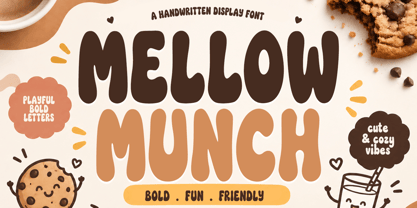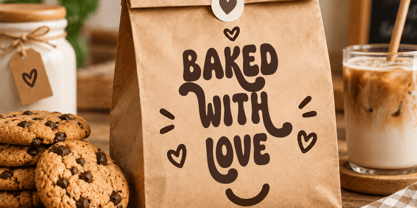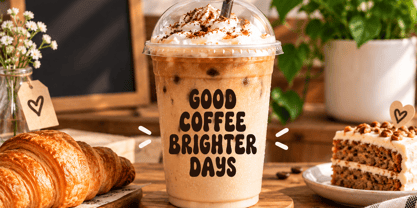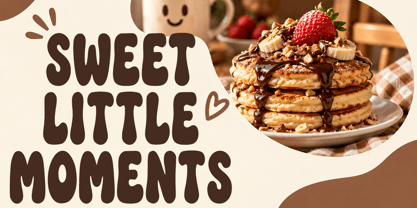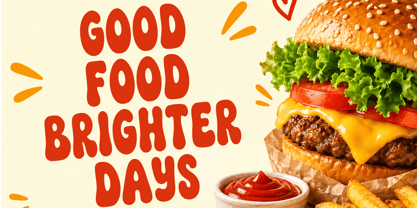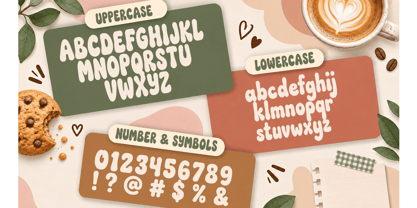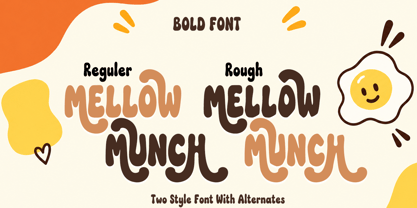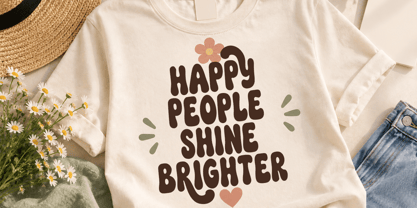
Mellow Munch
MELLOW MUNCH is a playful and chunky handwritten display font designed to bring a warm, fun, and friendly personality to your designs. With its bold rounded shapes, organic curves, and charming hand-drawn feel, this font is perfect for projects that need a cute and approachable touch.
Its soft, bubbly letterforms make it especially suitable for food branding, packaging, café designs, logos, children’s products, labels, stickers, social media graphics, posters, apparel, and more.
Whether you're creating a cozy bakery identity, a playful food label, a fun kids' project, or eye-catching social media artwork, MELLOW MUNCH is made to stand out while keeping things cheerful and inviting.